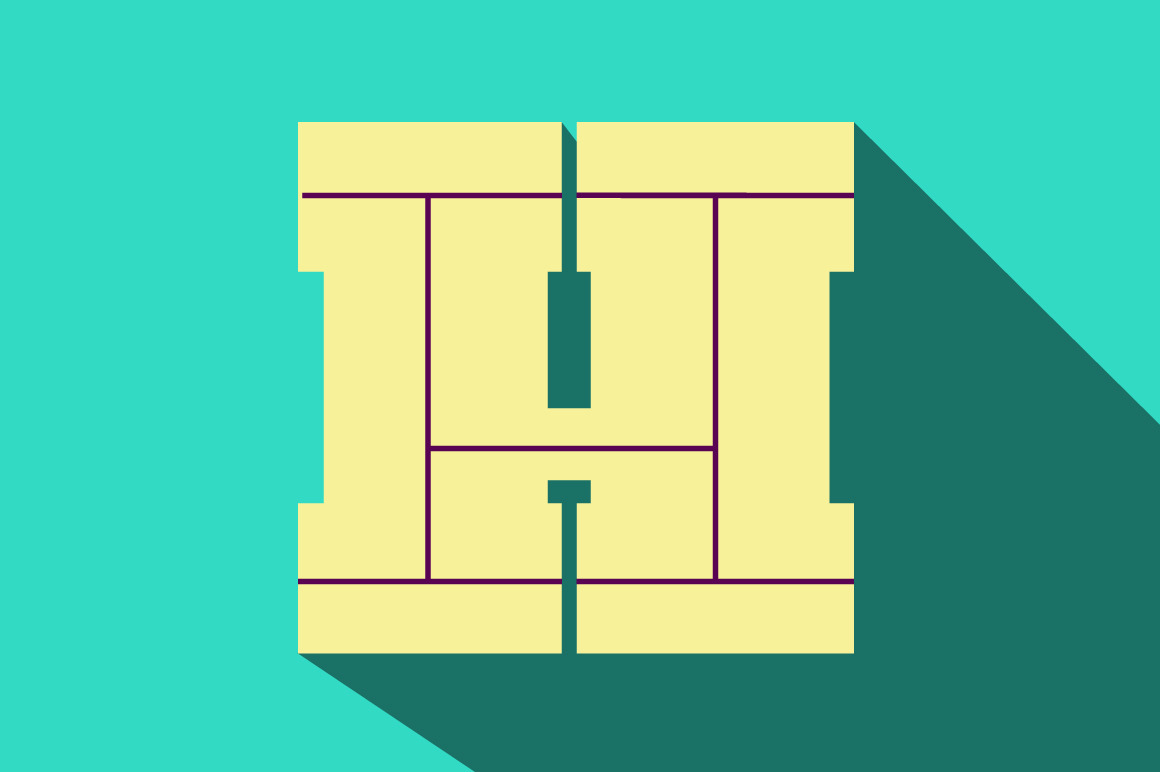
Humble is a Slab Serif typeface with two different weights and inline style. Heavy and sturdy structure makes Humble Regular assertive. Humble Hairline is gracious and subtle with thin body weight and potent serifs. Inline style creates nice depth on strong body of Humble typeface.